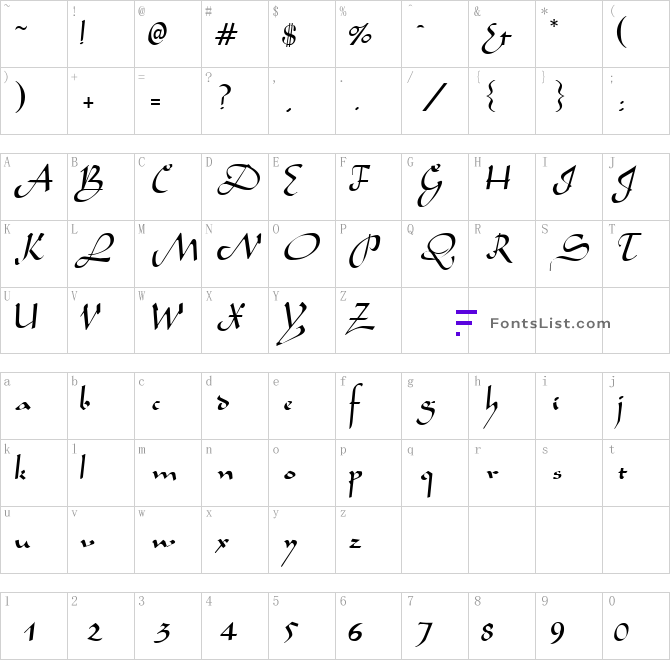
- Font Name:Aladdin
Aladdin-Regular-copy-2-.ttf is a very beautiful artistic font, Aladdin-Regular-copy-2-.ttf is widely used in the design and printing of various books and pictures,Aladdin-Regular-copy-2-.ttf has a strong visual impact,Aladdin-Regular-copy-2-.ttf is a commonly used font in newspapers, magazines and books, and is used in posters, e-commerce Poster design, store design, logo design, font design and other fields.Aladdin-Regular-copy-2-.